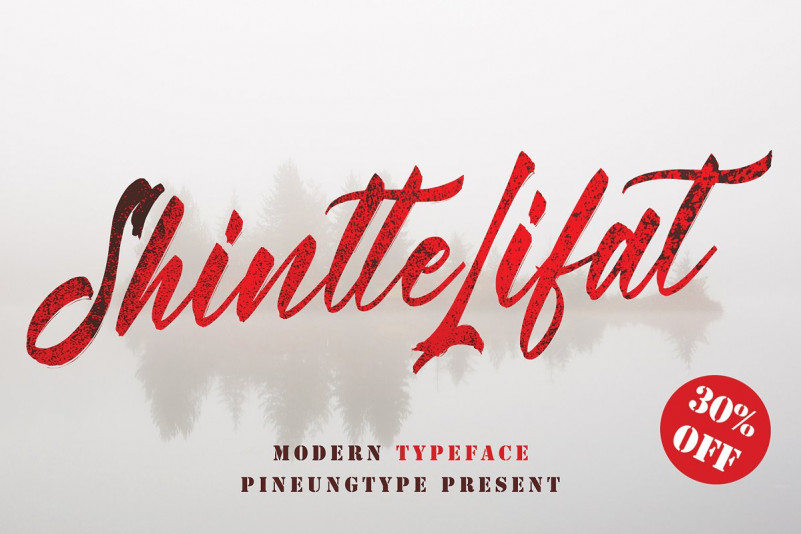
Shintte Lifat Font
Shintte Lifat handwritten font with new style, this font will perfect for many different project ex: quotes, logo, blog header, poster, banding, fashion, apparel, letter, invitation, stationery, etc…